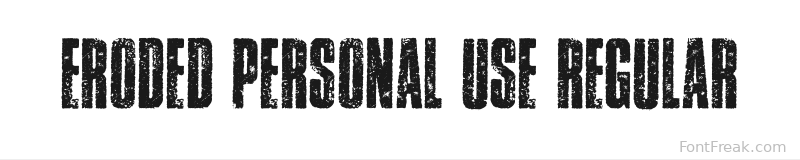
ERODED PERSONAL USE Regular
ERODED PERSONAL USE Regular by Billy Argel Fonts is a striking display font that falls into the eroded category. This typeface features a bold, rugged appearance with worn edges that create a sense of character and authenticity. The stroke weight is consistent and heavy, giving it a commanding presence while the distressed design adds an artistic flair. The spacing is generous, allowing each letter to breathe and stand out, making it suitable for various applications.
This font is particularly well-suited for use cases where a gritty, urban aesthetic is desired. It shines in creative projects like movie posters that aim to evoke a sense of drama or tension. Restaurant menus that want to convey a rustic or casual vibe will benefit from its unique style. Additionally, ERODED PERSONAL USE Regular can enhance the visual impact of merchandise branding, especially for businesses that cater to a younger, trend-conscious audience. Graphic designers and content creators will find this font invaluable for crafting eye-catching social media graphics or promotional materials that demand attention.
The target audience for ERODED PERSONAL USE Regular includes graphic designers, small business owners, and anyone looking to inject a raw, edgy feel into their projects. This font's ability to convey emotion and personality makes it a versatile choice for both personal and commercial applications.
What sets the ERODED PERSONAL USE Regular font apart is its distinctive character that embodies both strength and creativity. The combination of its bold, eroded style and versatility ensures that it will make a lasting impression in any design. With the ERODED PERSONAL USE Regular font free download, you can easily add this unique typeface to your collection and elevate your design projects.